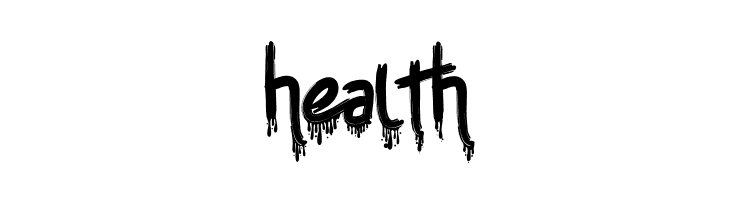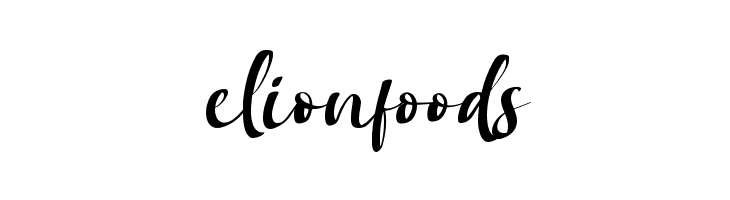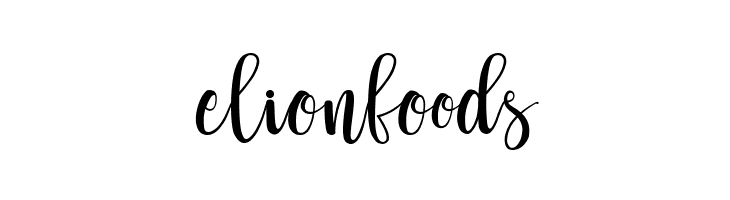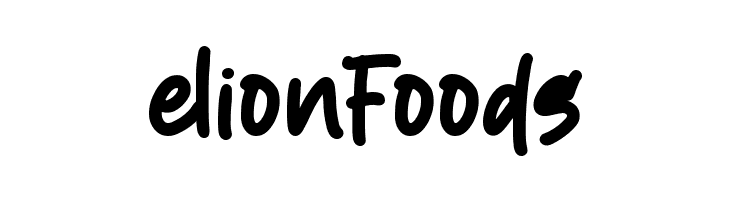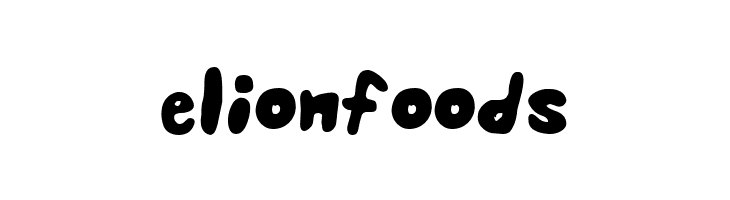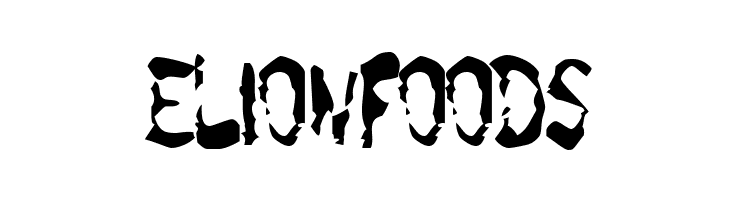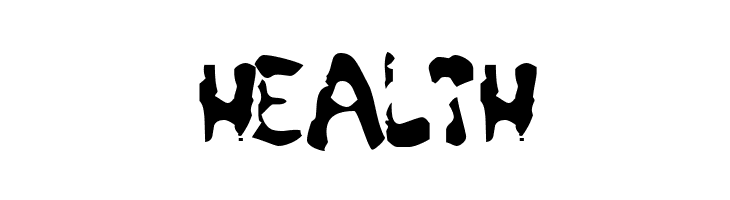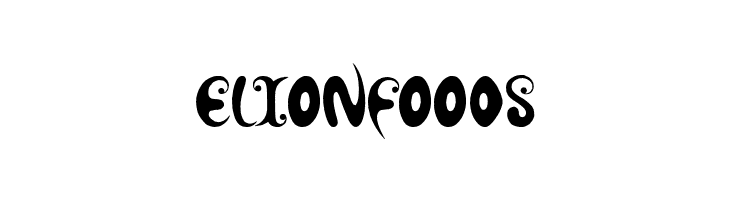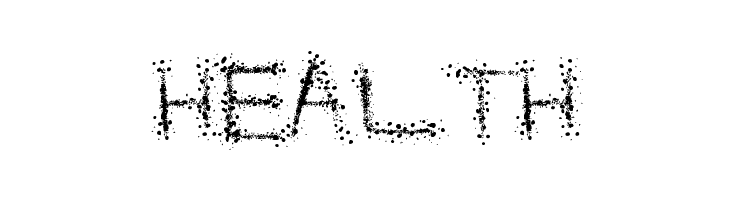
Caffe Latte Font
Font by Peter Stanton
A whimsical, ornate font with swirling, hand-drawn letterforms.
Latte Brown Regular Font
Font by Nabila
A playful, handwritten font with smooth, rounded edges and a casual style.
KG Skinny Latte Font
Font by www.kimberlygeswein.com - Kimberly Geswein
A tall, slender font with a modern and elegant style.
Lattetude Font
A bold, dynamic script font with flowing cursive letterforms.
Latté Font
A whimsical, hand-drawn font with elongated, narrow characters and a playful style.
Pumpkin Pie Lattes Font
A playful, handwritten font with tall, narrow letters and a casual style.
Hot Chocolate Latte Font
Font by Jonathan Harris - www.tattoowoo.com
A whimsical and playful font with bold, swirling characters.
Michigan 3D Italic Font
Justin Callaghan
A bold, 3D italic font with a futuristic and dynamic style.
Almond Latte Font
A playful, hand-drawn font with tall, narrow characters and a whimsical style.
Latte Coffee script Font
OldStudioo - Muhammad Ilham - www.fontdraft.com
A flowing, elegant script font with high contrast and graceful swashes.
Latteroll-Demo Regular Font
Font by Faqih Fawaji
A playful and bold font with a whimsical, dynamic style.
Vanilla Latte Font
Font by Ditya Ananto
A playful, dripping effect font with bold, outlined characters.
Frappe Latte Font
Rometheme - Yahdi Kumala - creativemarket.com/Rometheme?u=Rometheme
A bold, playful handwritten font with rounded strokes and a dynamic slant.
Babypa Font
Flawless And Co
A bold, playful handwritten font with dynamic strokes and a youthful vibe.